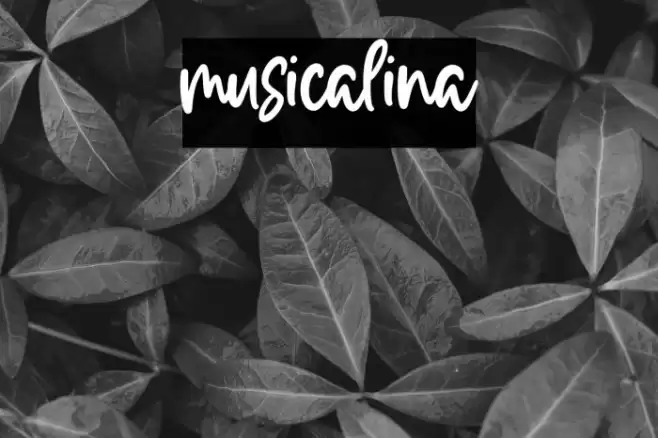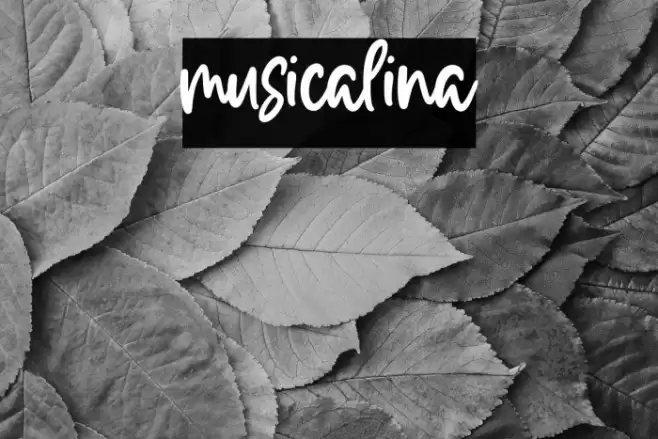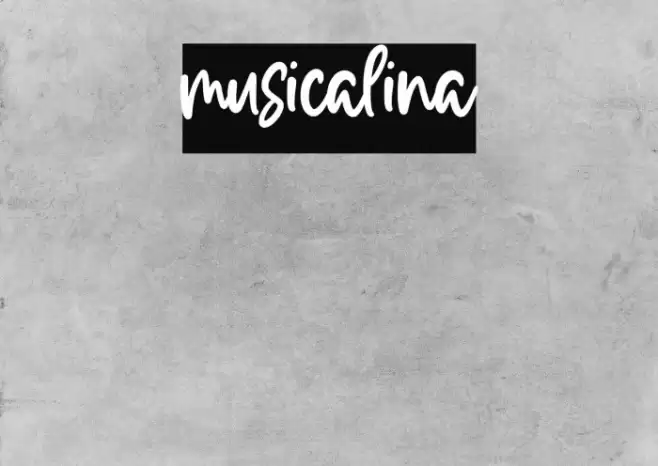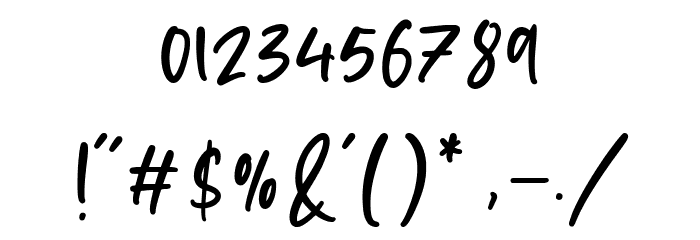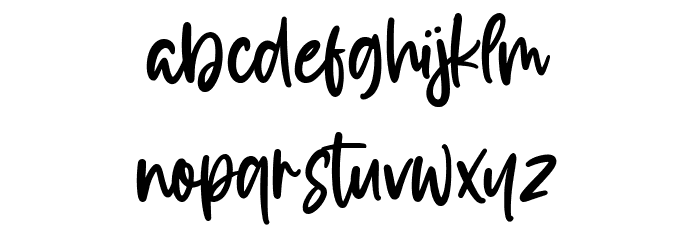
musicalina Font
musicalina Description
This font features a lively and expressive handwritten style, characterized by its fluid and dynamic strokes. The letters are slightly slanted, giving a casual and informal appearance. The uppercase letters are bold and prominent, while the lowercase letters maintain a consistent flow with rounded edges. Numbers and special characters follow the same playful aesthetic, making the font versatile for various creative applications. The overall look is modern and approachable, suitable for projects that require a personal touch.
A lively handwritten font with fluid, dynamic strokes and a casual style from Uncategorized fonts.
- Proposed Projects: Ideal for greeting cards, invitations, social media graphics, and branding materials that seek a personal and friendly tone.
- Use Case: Logos, Headlines, Social Media Graphics